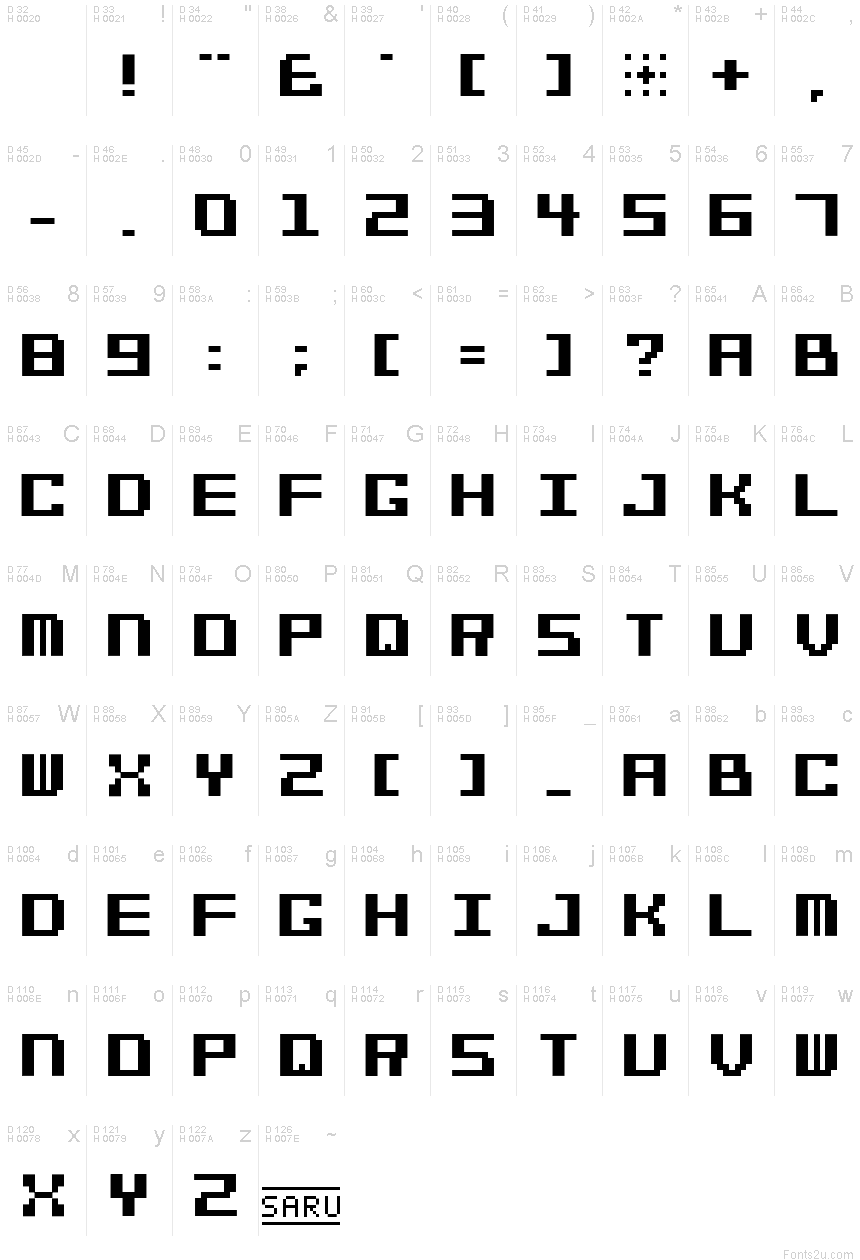
Bit Cheese10 (sRB)
Bit Cheese10 (sRB) font by sRB-Powers is a free pixelated bitmap typeface. Its tall, tightly packed letters lock together like stacked blocks, giving text a crisp, techy edge straight off an old-school monitor. The square curves, hard corners, and strict grid rhythm create a bold, compact texture that still reads cleanly at tiny sizes.
Using Bit Cheese10 (sRB), you can give menus, retro game HUDs, pixel art captions, stream overlays, hacker-style interfaces, and lo-fi posters an authentic 8‑bit bite. This free font shines when kept at native pixel sizes; pair it with a simple sans-serif for longer copy so the chunky bitmap titles can really pop.